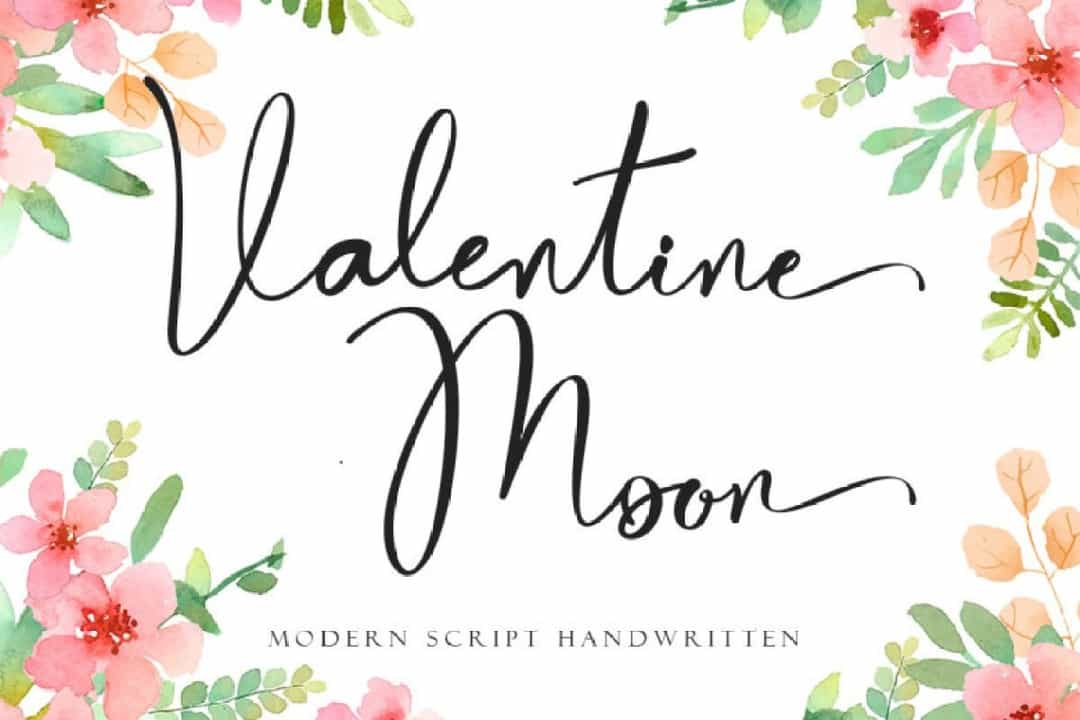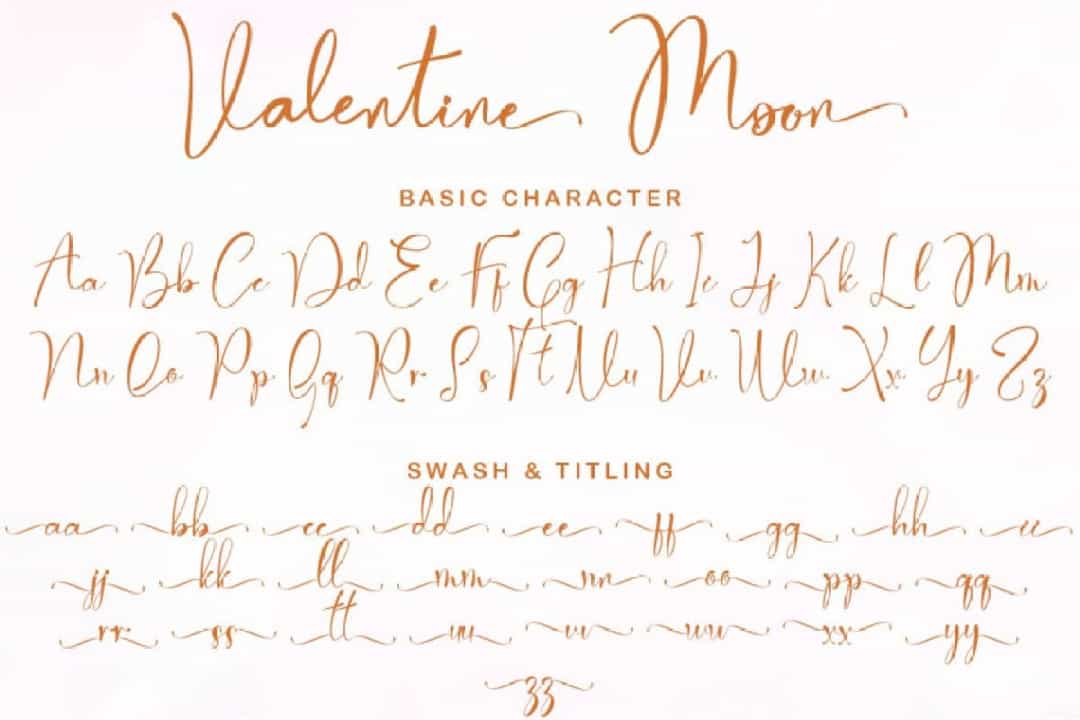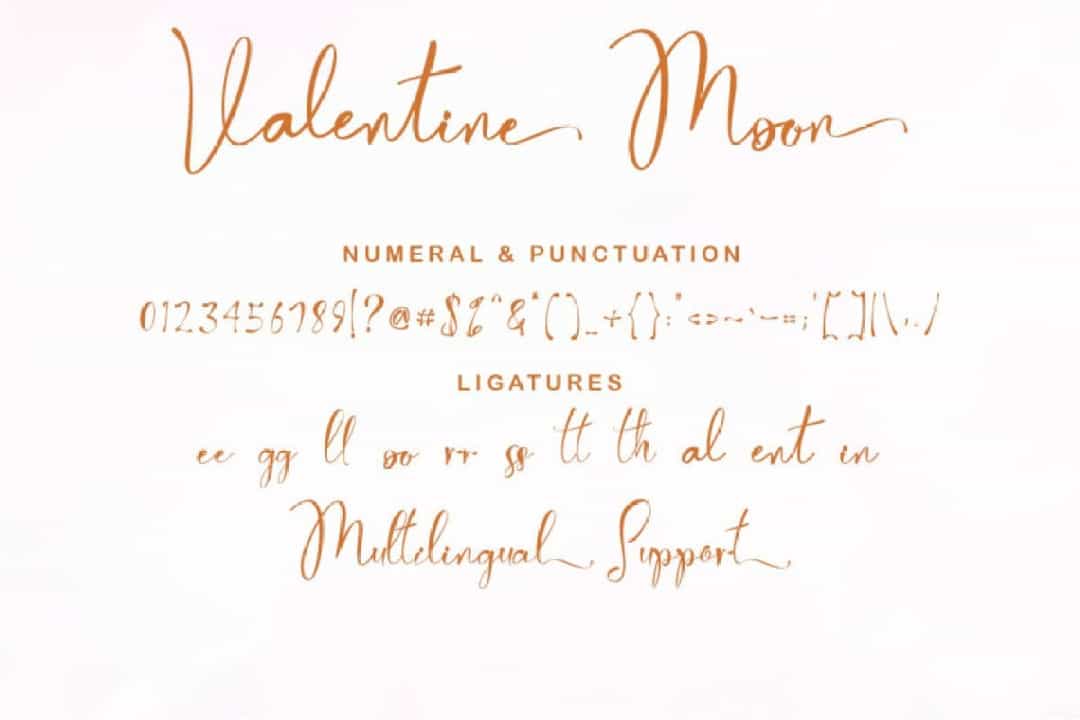
Valentine Moon is a creative and elegant handwritten font with special characters and stylish look and feel that is easy to apply. In addition, the designs incorporated around each letter makes it easy to use. This font is suitable for wedding cards, valentine’s day cards, birthday cards, social media ads on Twitter or Instagram, product logos, beauty sales, banners, posters, typo graphics, and sale labels on products.